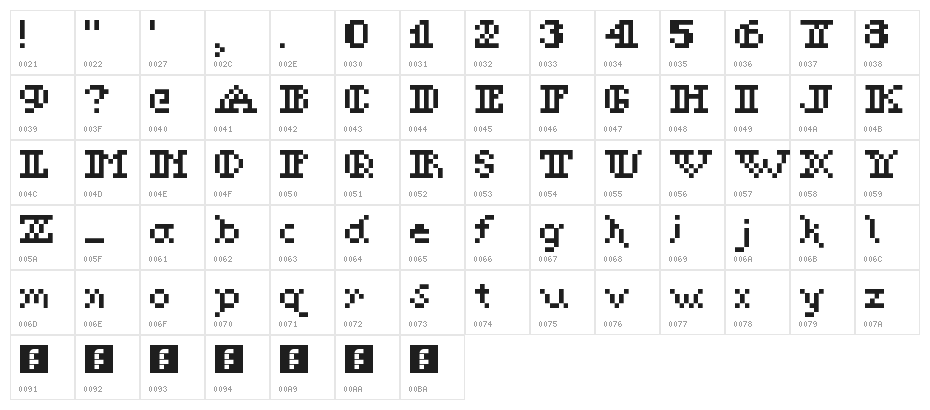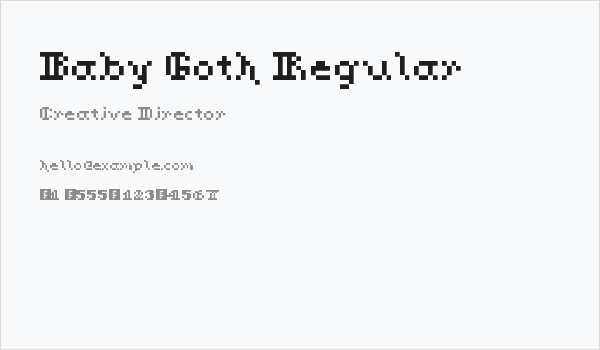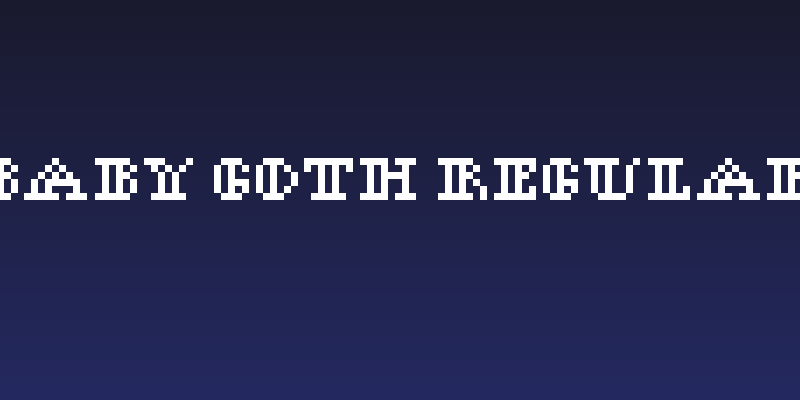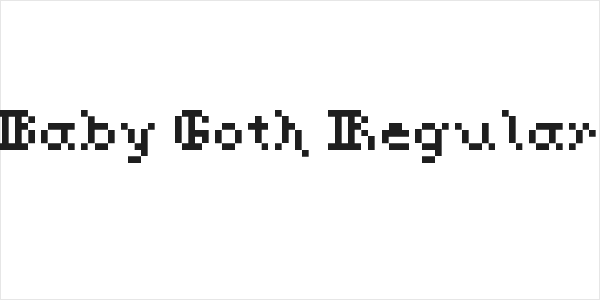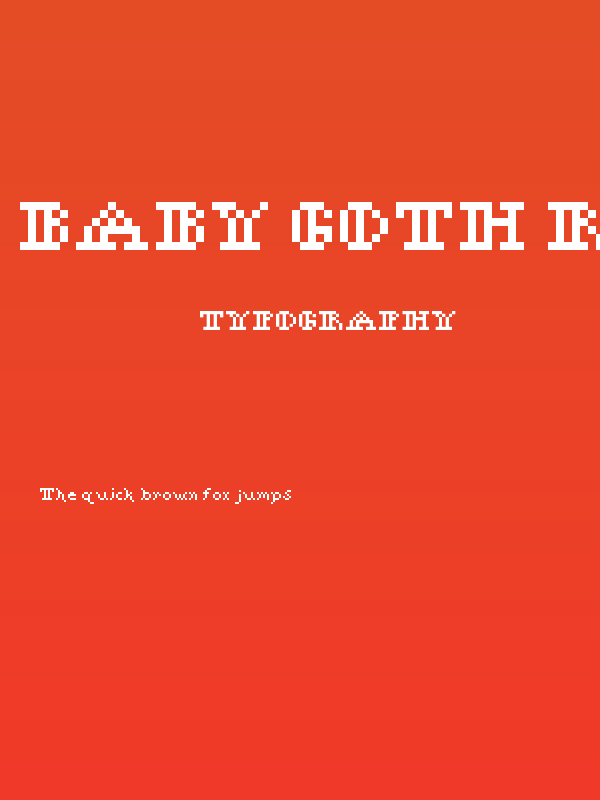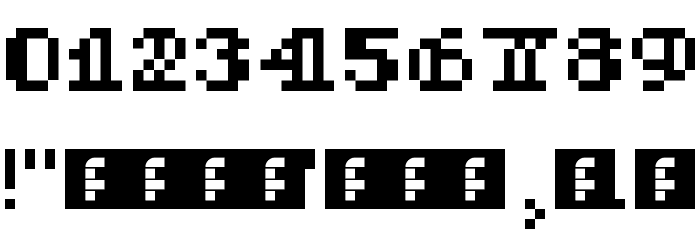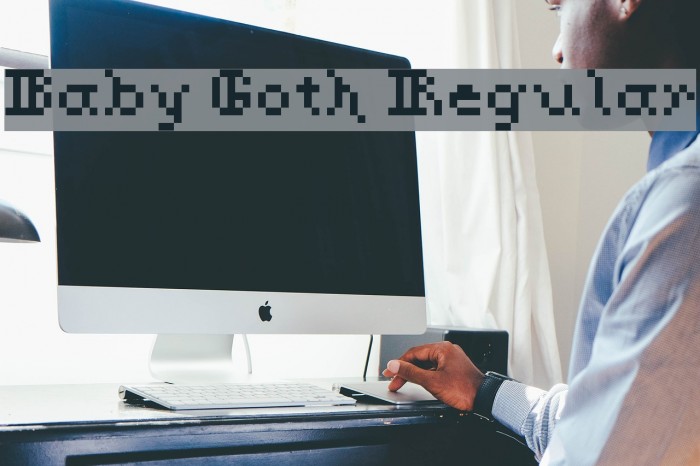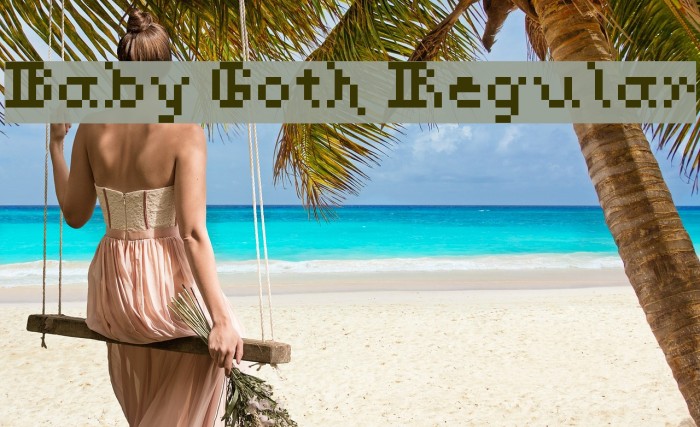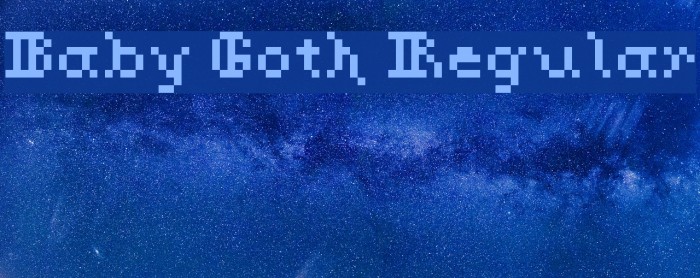
Baby Goth Regular Font
Baby Goth Regular Description
This font features a bold, pixelated style reminiscent of early digital or video game typography. Each character is constructed with a blocky, geometric design, giving it a distinct retro and tech-inspired appearance. The uppercase and lowercase letters maintain a consistent height, enhancing the uniformity and readability of the text. Numbers and special characters follow the same pixelated pattern, ensuring a cohesive look across all elements. The font's unique style makes it stand out, ideal for projects that require a nostalgic or digital aesthetic.
| Proposed Projects | Ideal for video game graphics, retro-themed posters, digital art projects, and tech-related branding. |